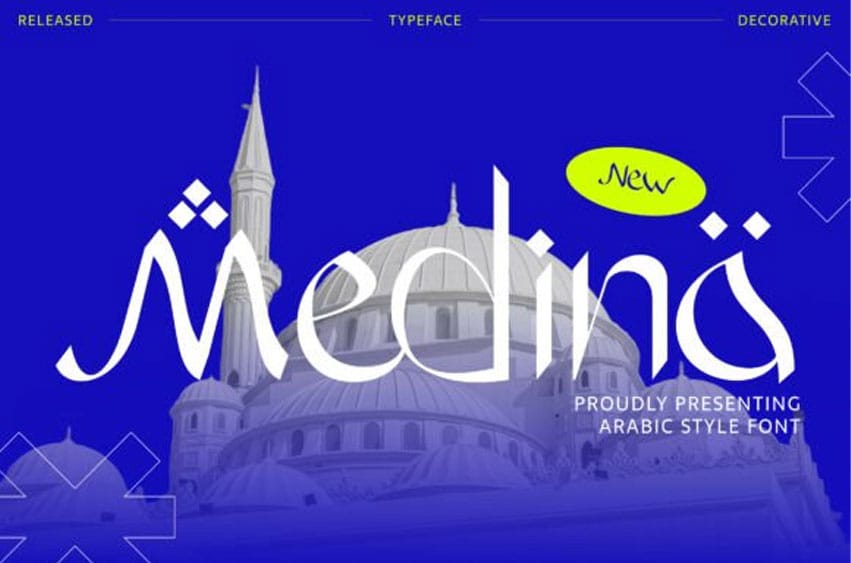
Medina Font is a decorative Arabic-style display font featuring expressive curves, sharp terminals, and distinctive ornamental details inspired by traditional Islamic calligraphy. Built for display purposes, this font emphasizes strong personality, cultural nuance, and artistic flair across modern layouts.
This font is highly relevant for projects that require a strong cultural and decorative visual identity, especially those inspired by Middle Eastern or Islamic aesthetics. It works effectively in branding, event promotions, religious celebrations, and artistic editorial layouts where expressive typography becomes the main visual element. The distinctive letterforms bring character and authenticity to both digital and print compositions.